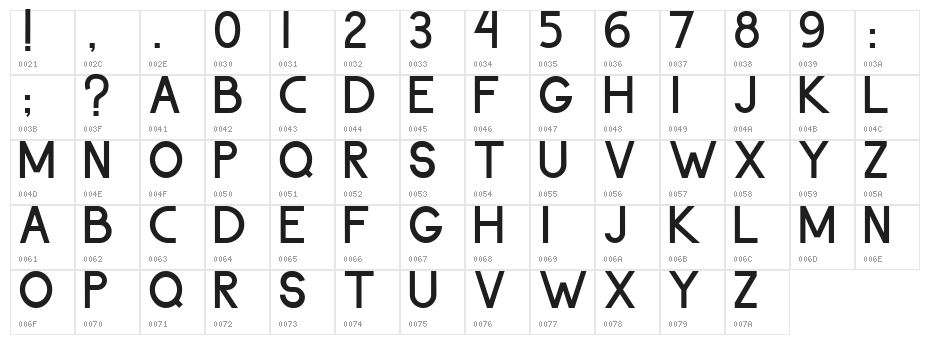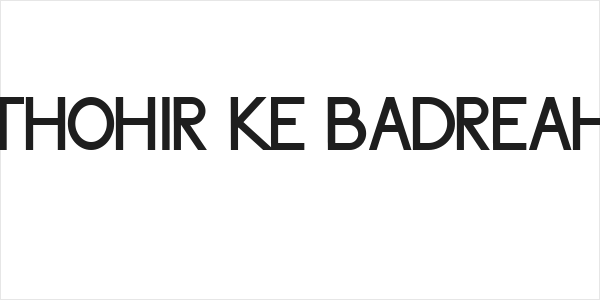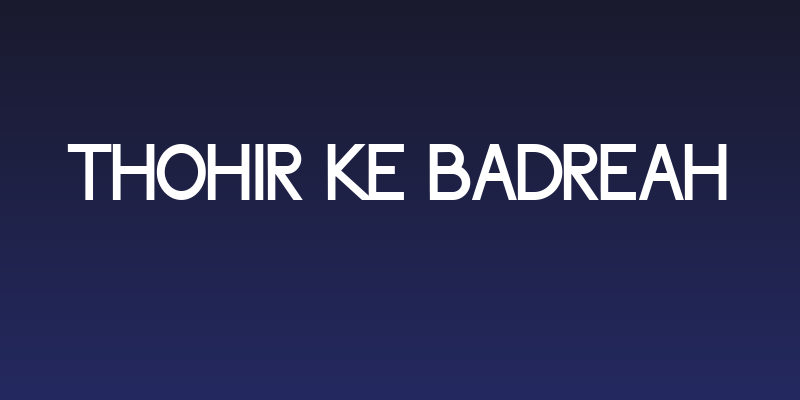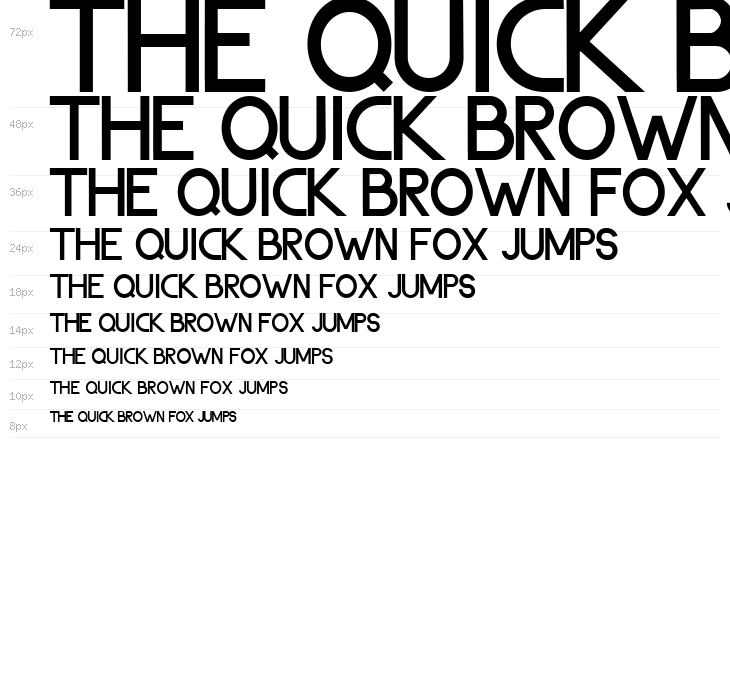
Thohir Ke Badreah Font
Thohir Ke Badreah Description
This font exhibits a clean and modern sans-serif style, characterized by its geometric shapes and uniform stroke widths. The letters are well-proportioned, with a consistent height and width that contribute to its readability. The design is minimalistic, with no unnecessary embellishments, making it suitable for a wide range of applications. The numerals are bold and clear, ensuring they stand out in any context. The overall appearance is sleek and professional, ideal for contemporary design projects.
| Proposed Projects | Ideal for branding, advertising, web design, and corporate materials due to its modern and professional look. |